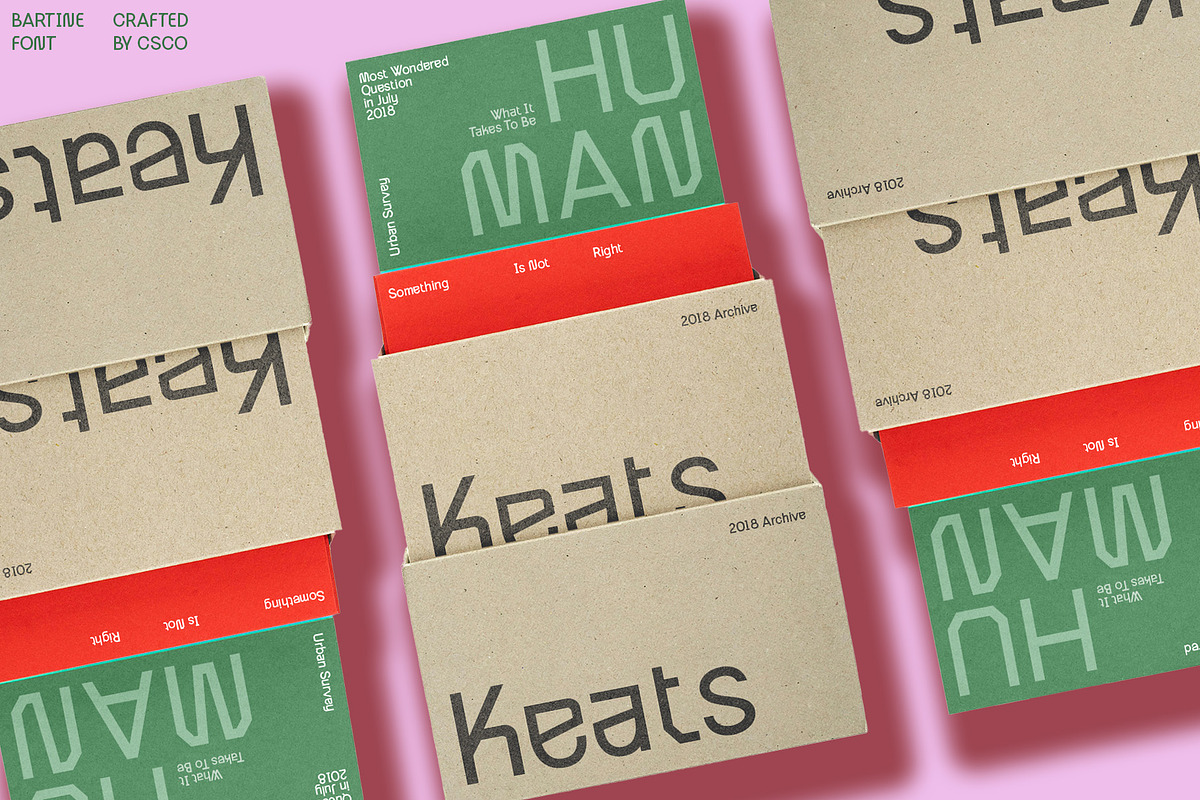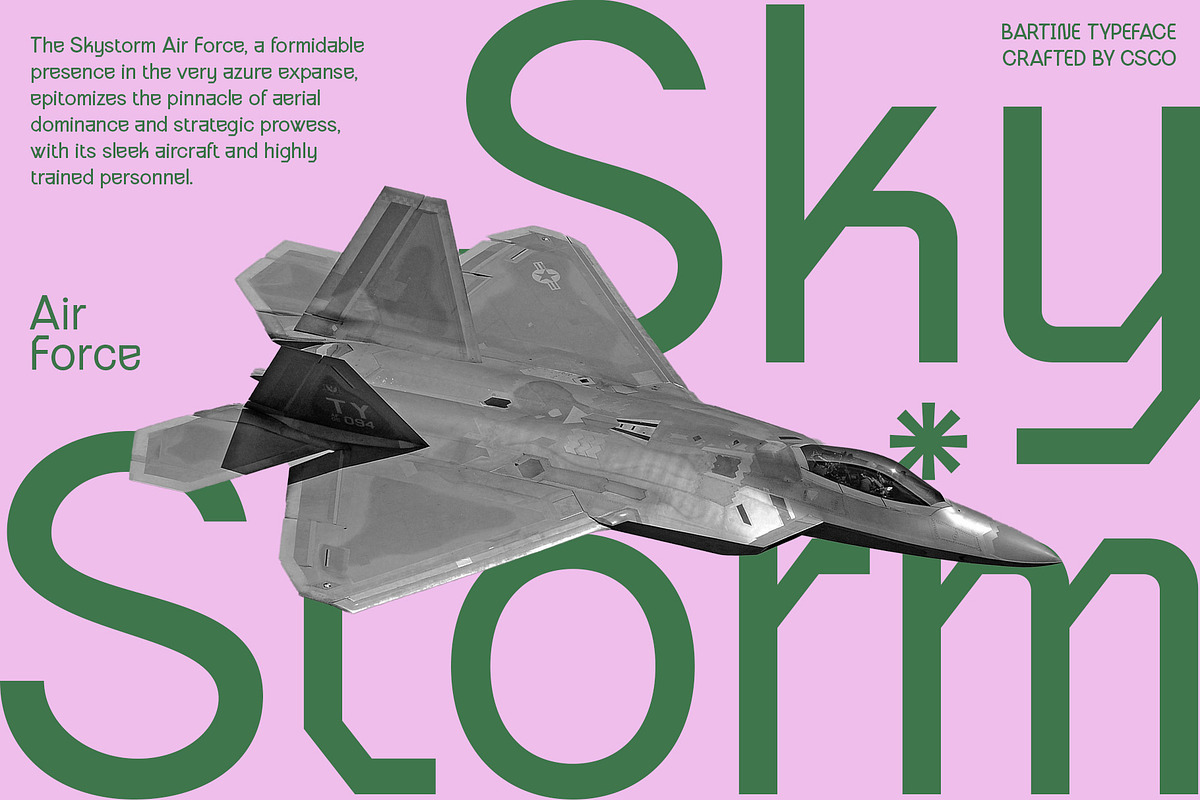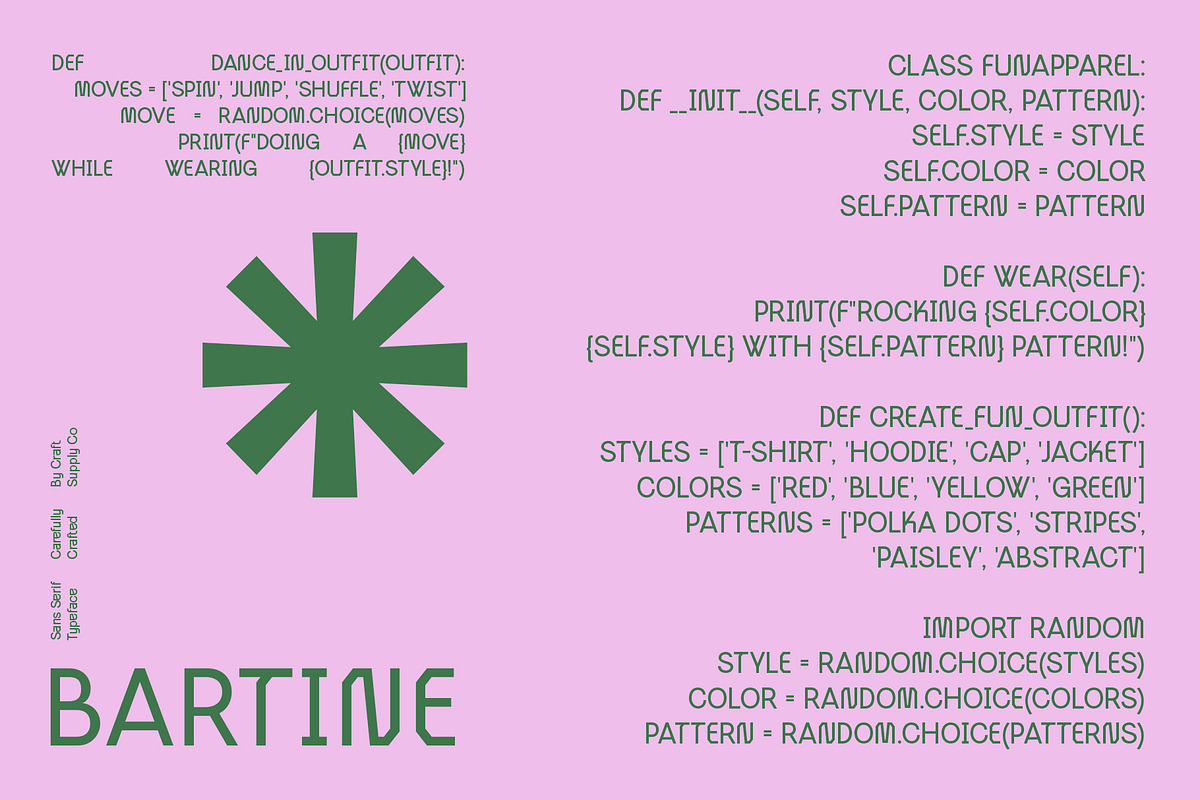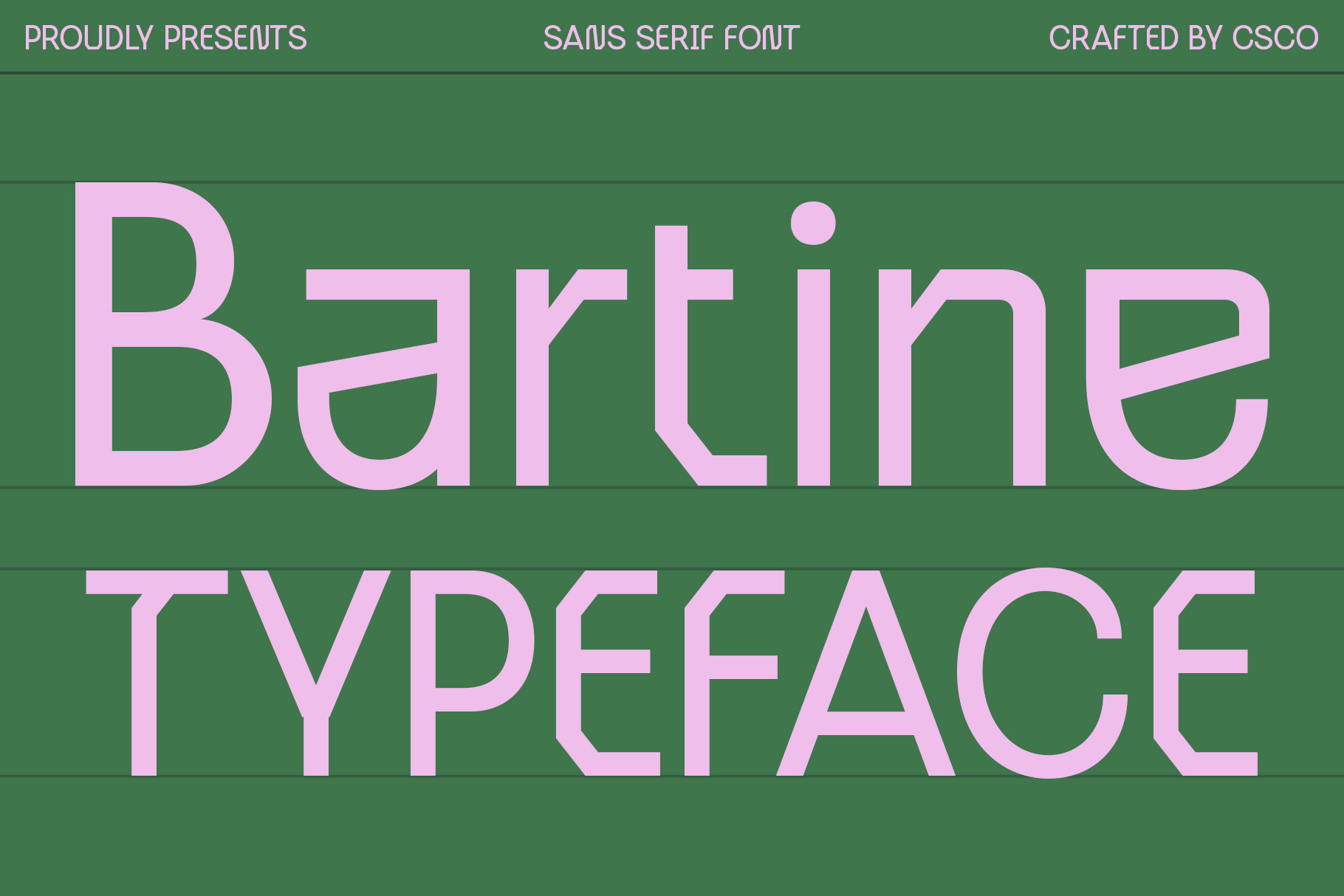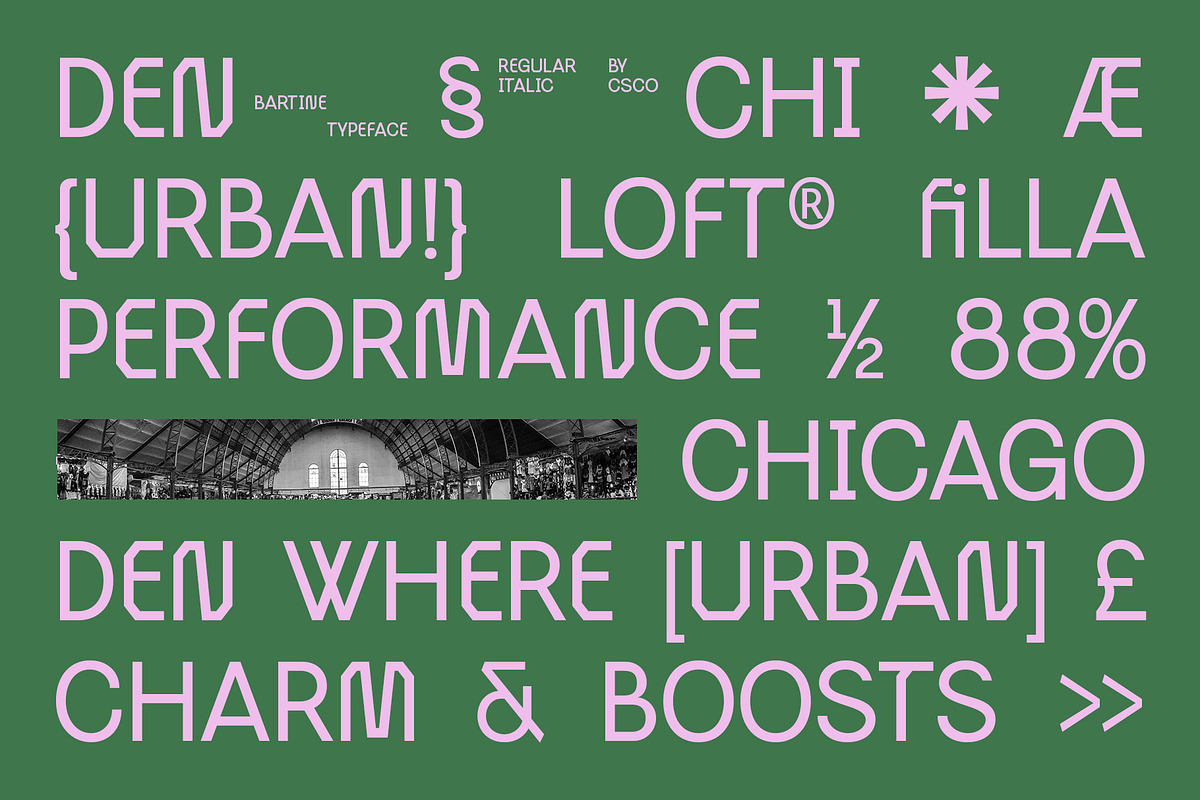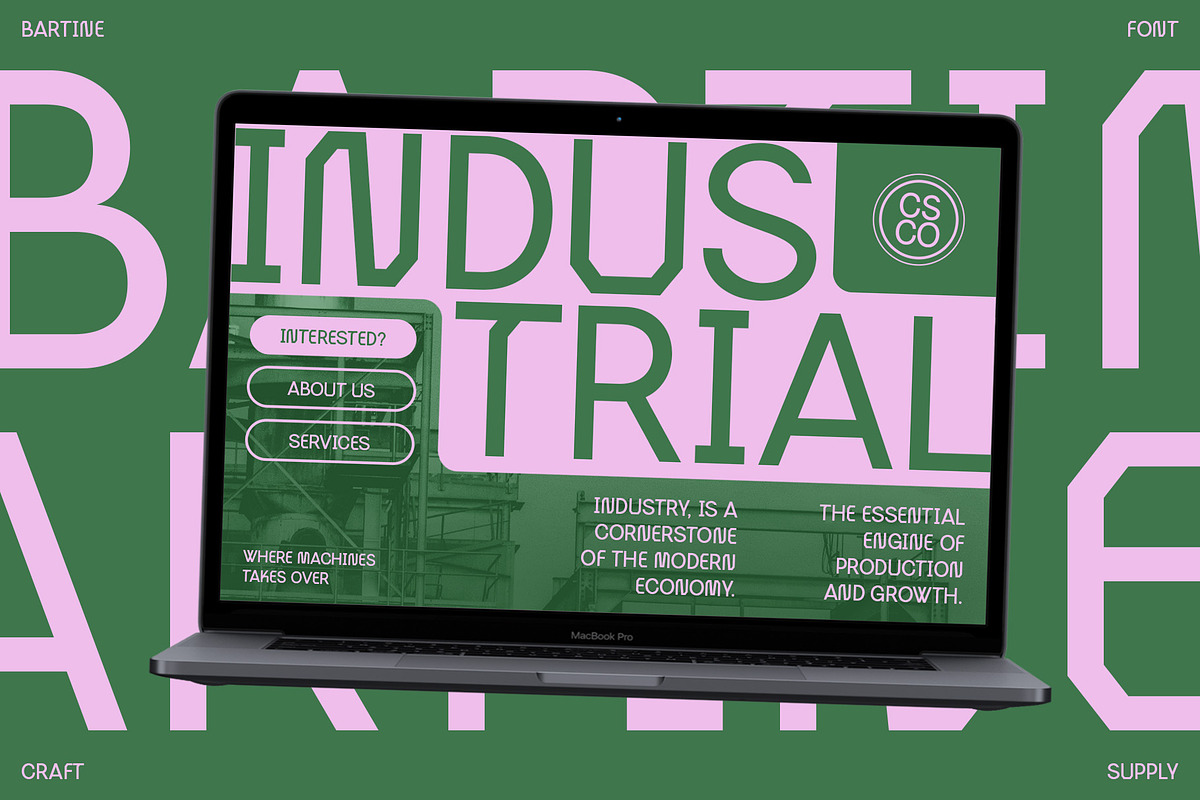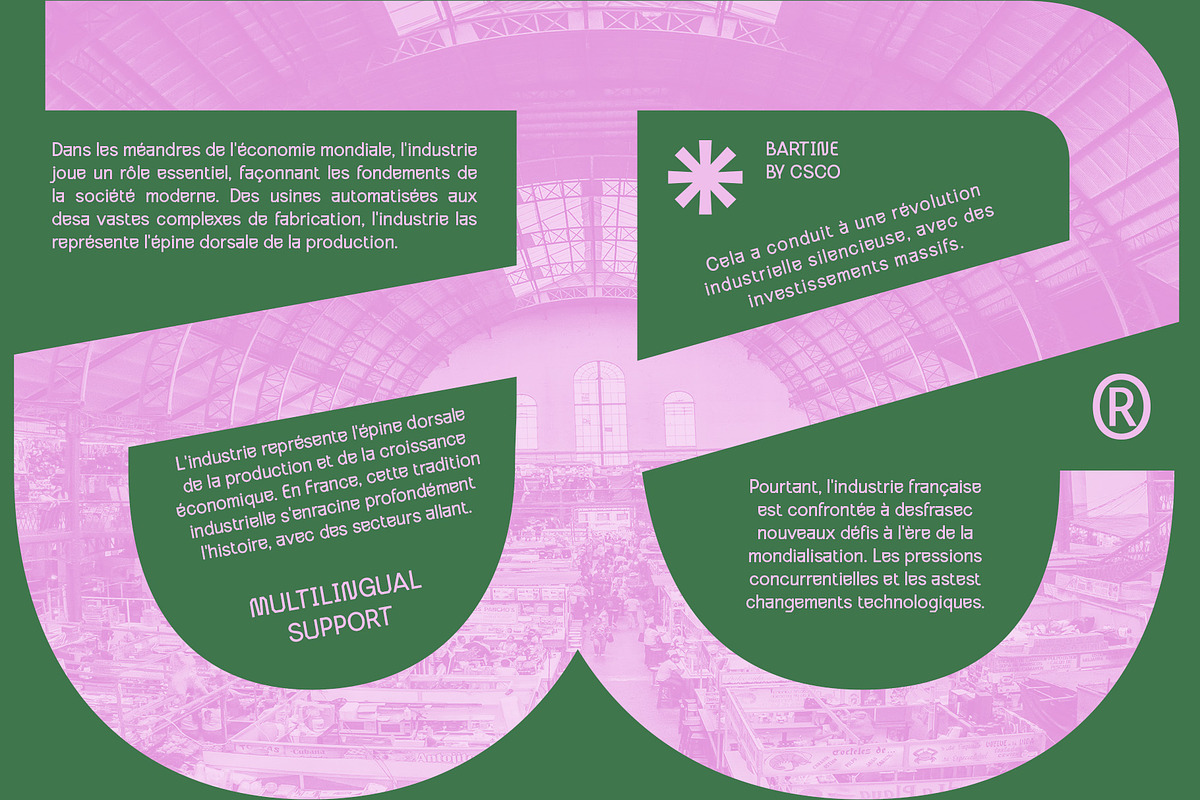
Bartine – Industrial Font
Bartine – Industrial Font: Where Strength Meets Modernity
Industrial Futuristic Sans
Bartine is a sans serif font with an industrial and futuristic style, suitable for designs emphasizing modernity, technology, and strength. Its clean lines and bold shapes make it ideal for posters for tech or industrial events, corporate logos seeking innovation, and web or app designs requiring a clean, modern look.
Suitable for Various Design Applications
Bartine’s industrial and futuristic style makes it versatile and suitable for a wide range of design applications. Whether you’re creating a poster, logo, or web design, Bartine’s bold and modern look is sure to make an impact.
Perfect for Tech and Industrial Themes
The industrial and futuristic style of Bartine makes it perfect for designs that focus on themes of technology, innovation, and strength. Its clean lines and bold shapes convey a sense of modernity and innovation, making it ideal for projects that require a sleek and modern look.
Versatile and Easy to Use
Despite its bold appearance, Bartine is versatile and easy to use. The font works well in both large and small sizes, making it suitable for a variety of applications. With its blend of industrial and futuristic style, Bartine adds a modern and dynamic touch to any design.
- Bartine Regular
- Bartine Italic